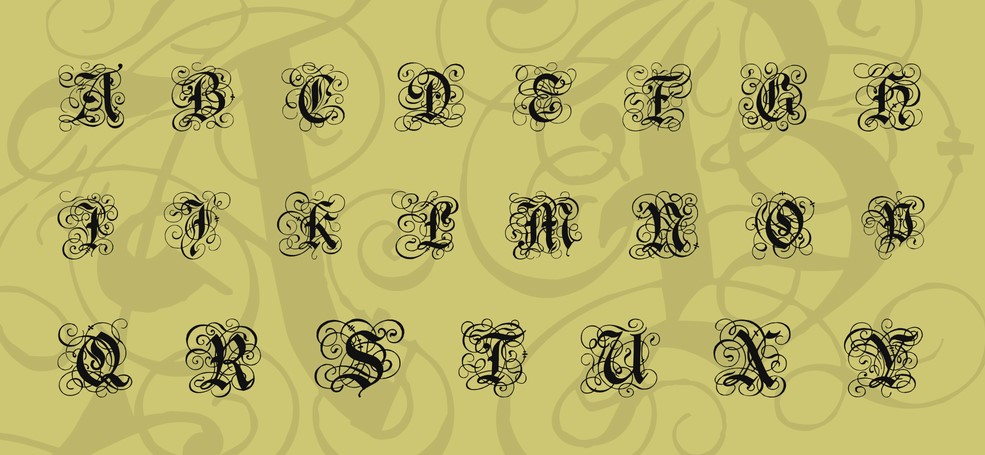
In this post, we would like to bring your attention to the great display typeface that is known as the Gothic Flourish Font. This typeface is released in 2000 under the banner of Residence of Lime.
This is a great typeface that comes with some great glyphs and characters that can easily be used with the styling of theĀ corbel font. You can easily use this typeface in any of the designing projects you like.
The great texture that is available in this typeface makes this font useful in the field of printing on cloth enterprise. This is the pure display typeface that will give your design a new look.